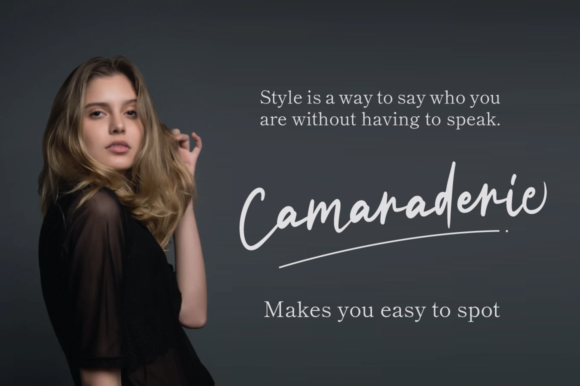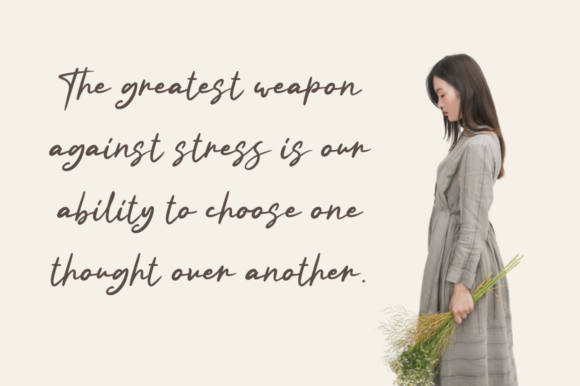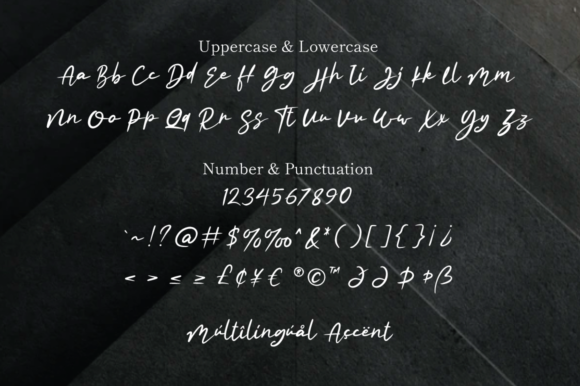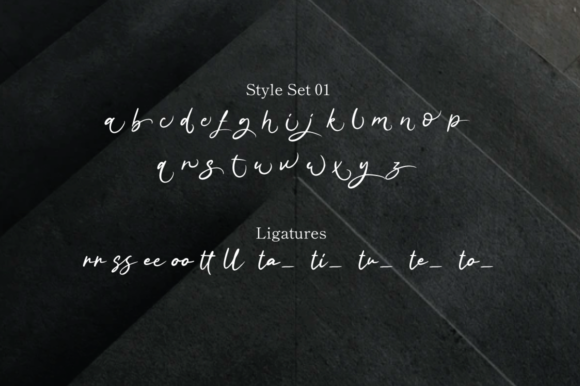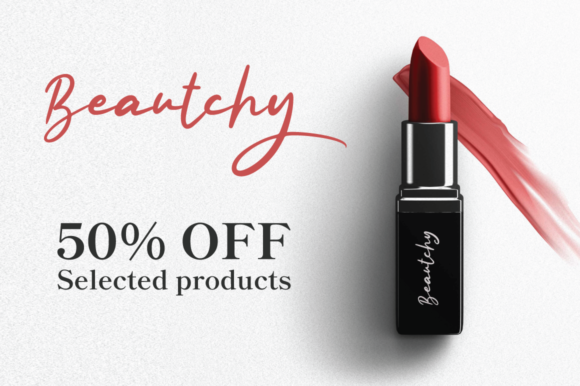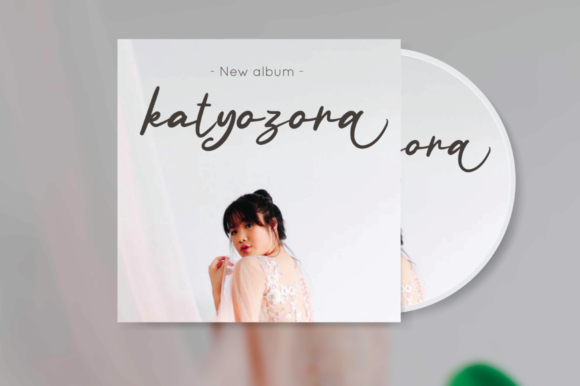
Introduction to Rhiledia Font
Rhileida is a gorgeous and cool handwritten font, crafted to give your headlines and logotype projects a stylish touch.
This font reads as strong, confident, and dynamic and can add tons of nostalgic character to your designs .
Key Features of Rhiledia Font
Why Choose Rhiledia Font?